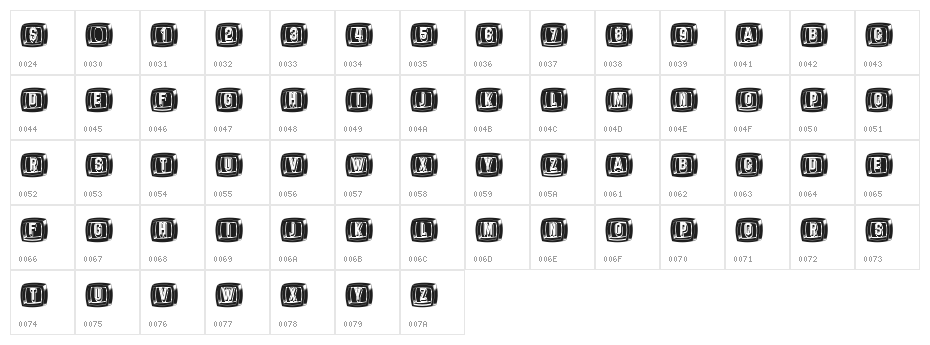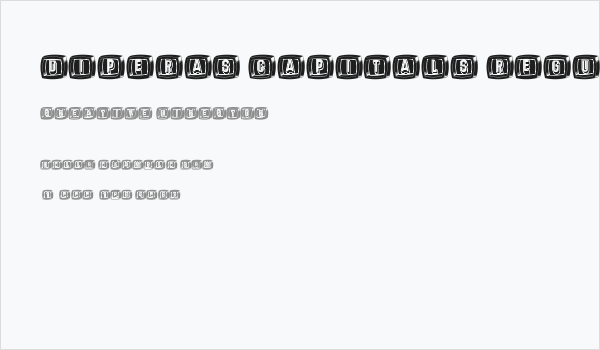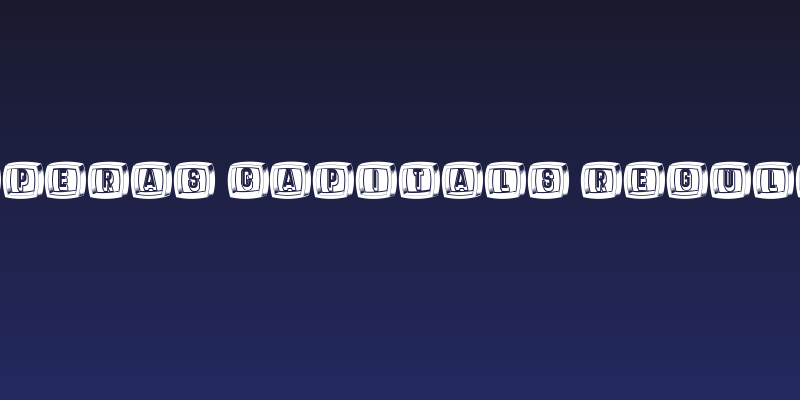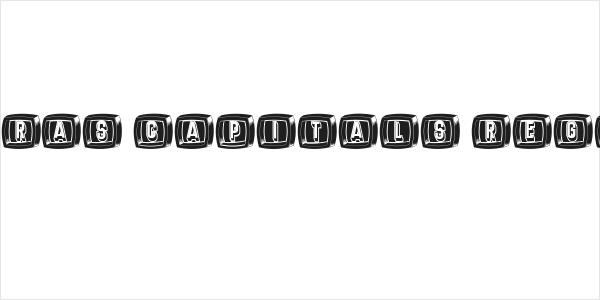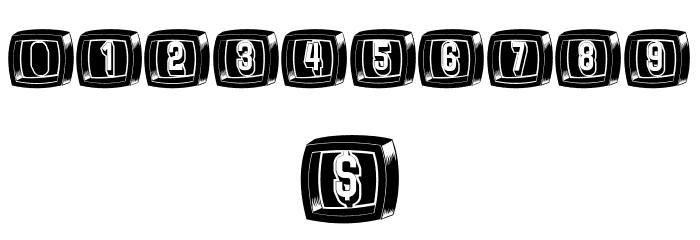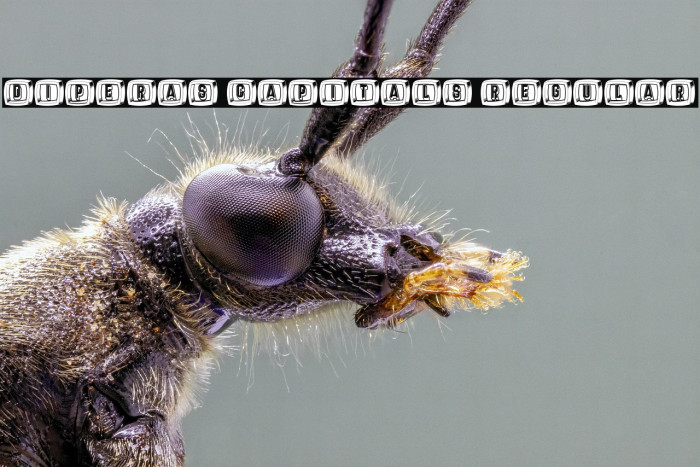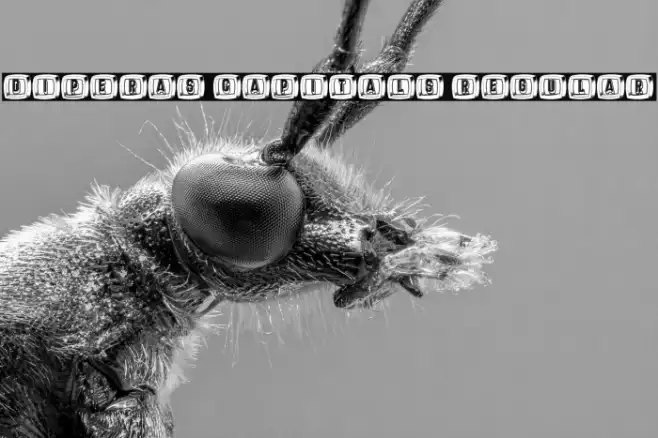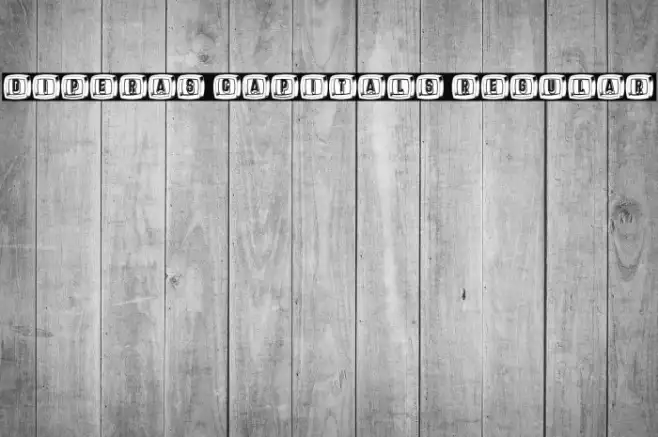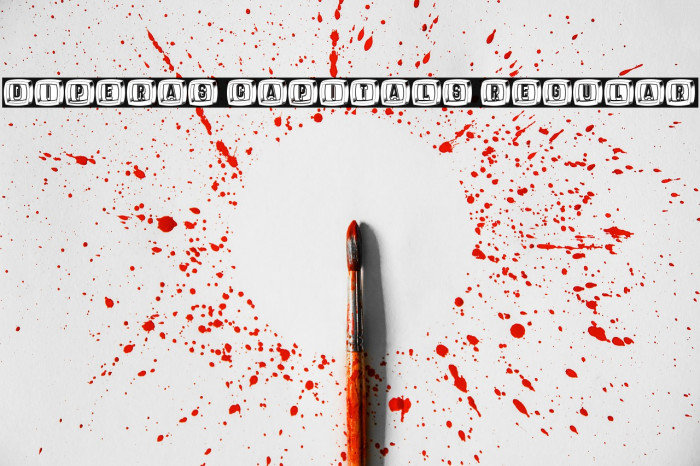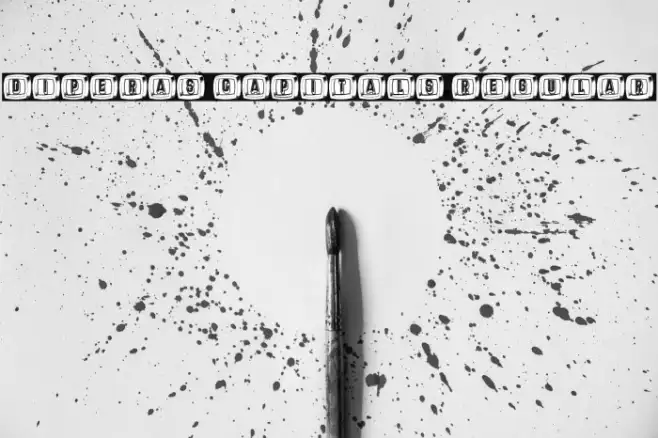
Diperas Capitals Regular Font
Diperas Capitals Regular Description
This font features a bold, three-dimensional style with each character enclosed in a rounded square, giving it a unique, retro appearance. The letters are uppercase and have a distinct shadow effect that adds depth and dimension. The design is reminiscent of vintage typewriter keys or old-school signage, making it stand out with its bold presence. The font's structure is consistent across all characters, maintaining a uniform look that is both eye-catching and easily readable. The numbers and special characters follow the same design principles, ensuring a cohesive appearance throughout.
| Proposed Projects | Ideal for retro-themed posters, vintage branding, or any project requiring a bold, standout typeface. |